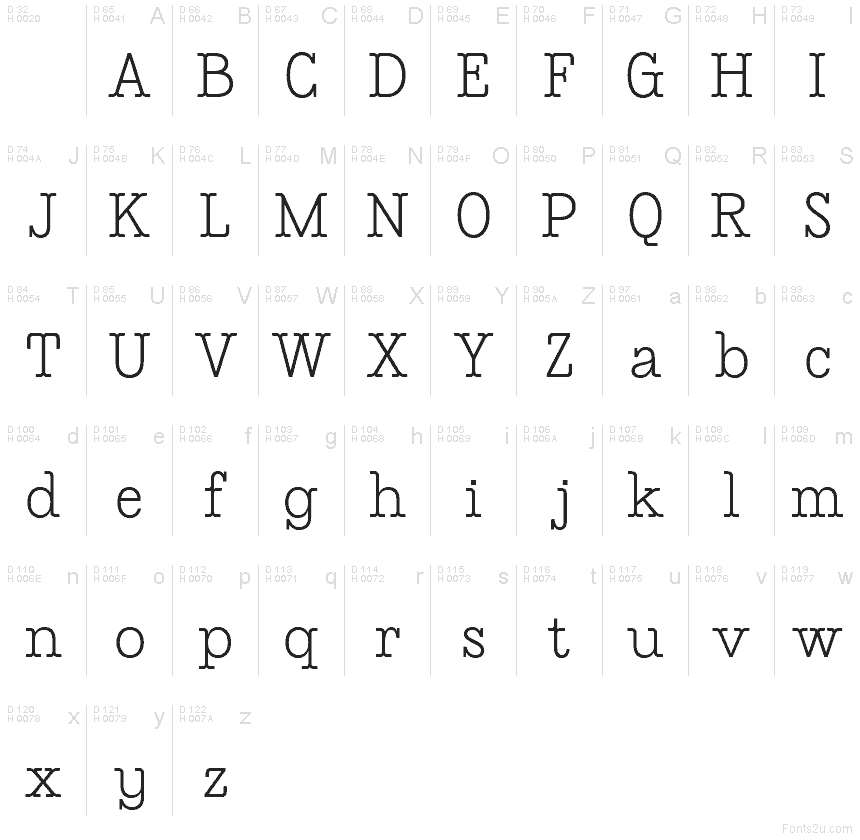
CS Gains Regular Demo
CS Gains font by Craft Supply Co. presents an elegant and refined design with traditional influence in each character’s anatomy. The free serif font focuses on readability and a pleasant display appearance with its classic characteristic and smart print enhancements that please the eye whether in all sorts of long body text or in headings.
Its gentle style makes it suitable for advertising, signage, magazines, publishing projects, newspapers titles, book covers or even invitation cards for special events such as weddings. Websites can also benefit from its presence within online publications while stringent forms get a new feel to their look when this typeface is applied.